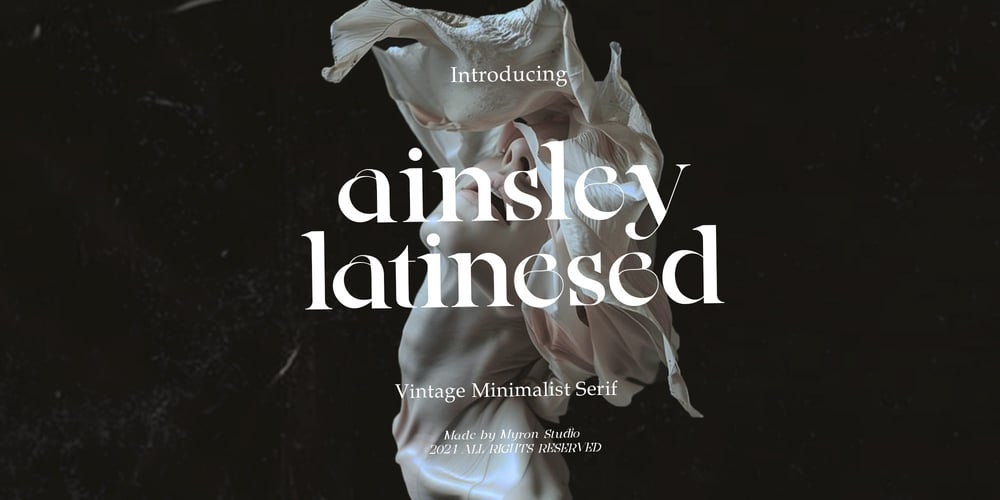
Ainsley Latinesed Font Family was designed by published by Myron Studio. Ainsley Latinesed contains 4 styles and family package options. Ainsley Latinesed is a vintage serif typeface that embodies minimalism and elegance, crafted with graceful alternate characters and modern ligatures. Available in four distinctive styles regular, italic, bold, and bold italic this typeface brings versatility and luxury to any design. With extended Latin character support for nearly 70 languages, Ainsley Latinesed’s high-contrast design makes it ideal for impactful applications, such as large-scale headlines, logotypes, posters, banners, magazine covers, cosmetic packaging, and a variety of editorial or display uses. This typeface combines classic elegance with a modern touch, making it a perfect choice for professional and creative projects.#fonts #fontsandcalligraphy #fontsfordesigners #typography #typographyart #typographyinspired #typeface #retro #vintage #modern #script #calligraphy #sans #serif #seriffont #sansserif #display #displayfont #handwriting #handwritten #handdrawn #graphic #graphicdesign #designresources #creative #creativemarket #elements #designer #ad #sponsored